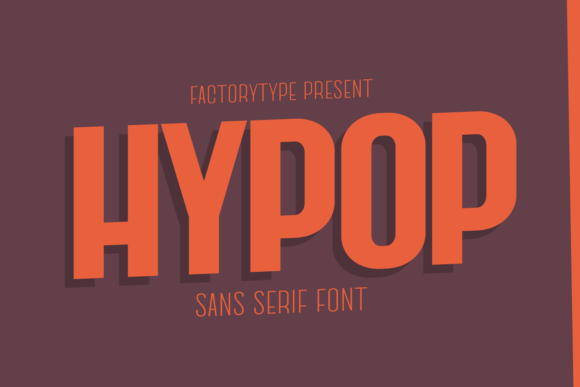
Dive into the realm of timeless typography with Hypop: a remarkable sans serif font family that will captivate your audience with its elegant and dignified aura. Inspired by the allure of times past, Hypop masterfully blends retro charm with a minimalist ethos, resulting in a font that exudes sophistication and style.
Embrace the versatility of Hypop, a font family that effortlessly adapts to diverse design landscapes. Whether you're crafting logos, branding materials, website designs, or captivating social media graphics, Hypop will elevate your creations with its timeless appeal. Its carefully crafted characters, meticulously kerned for optimal readability, ensure that your message will shine through with clarity and impact.
Unleash your creativity with Hypop's diverse weights, ranging from the delicate Hairline to the commanding Black. This spectrum of weights empowers you to orchestrate typographic masterpieces that resonate with your audience. Fine-tune the tone of your designs, from whisper-soft elegance to bold and assertive statements. Hypop empowers you to convey your message with precision, nuance, and artistic flair.
As a PUA-encoded font, Hypop unlocks a treasure trove of typographic possibilities. With ease, access an array of stunning glyphs and ligatures that add a touch of magic to your designs. Elevate your text with graceful swashes, intricate ornaments, and stylish alternates that transform ordinary words into captivating works of art. Hypop grants you the creative freedom to craft designs that leave a lasting impression.
Immerse yourself in the world of Hypop, a font family that embodies timeless beauty, elegance, and versatility. With its meticulous craftsmanship, diverse weights, and wealth of typographic features, Hypop empowers you to create designs that transcend time and capture the hearts of your audience. Embrace the allure of Hypop and embark on a creative journey that will redefine your design horizons.